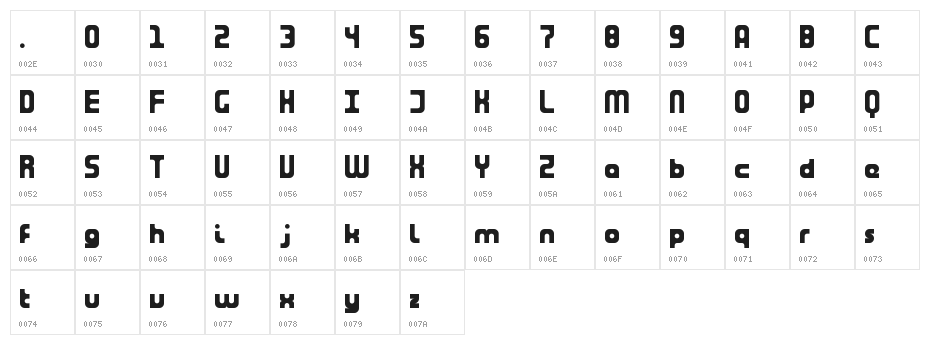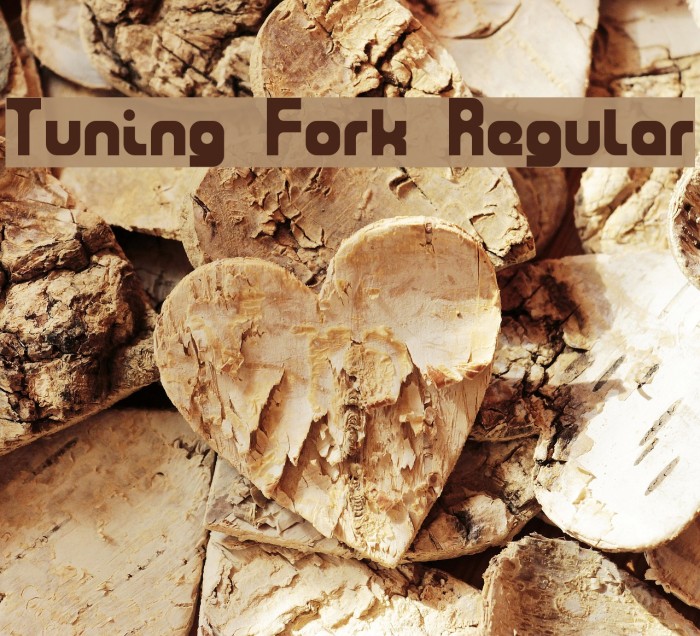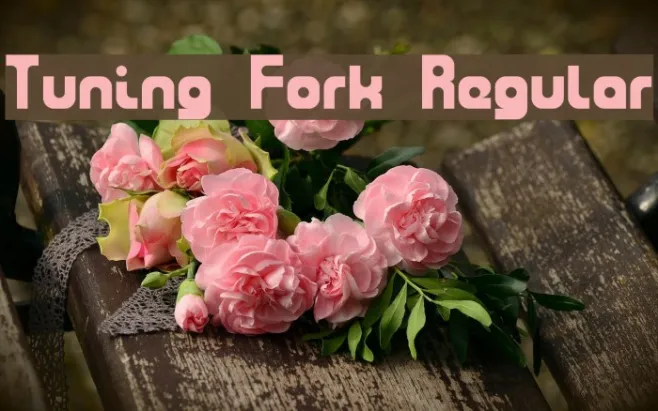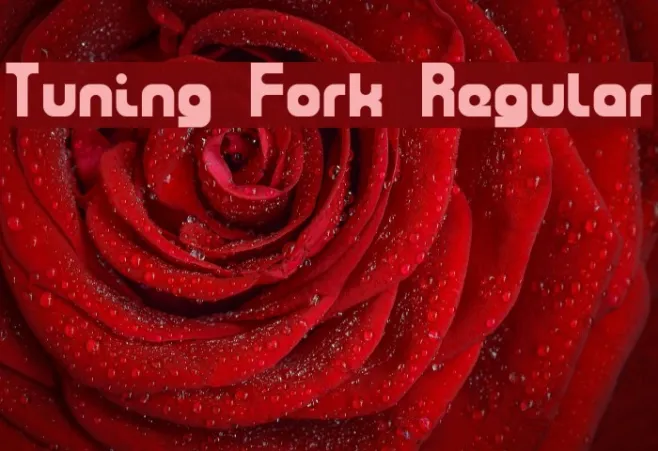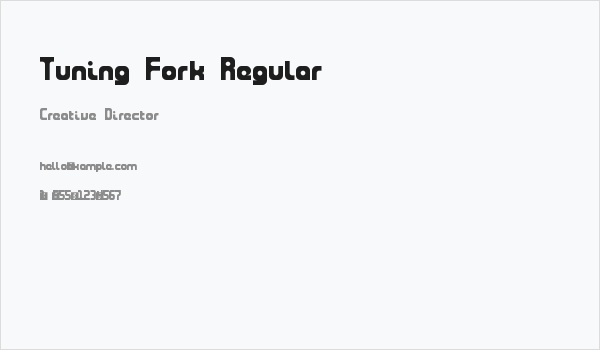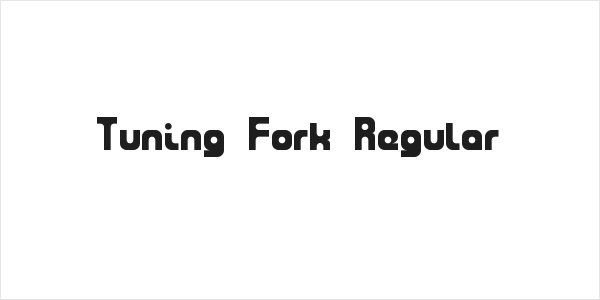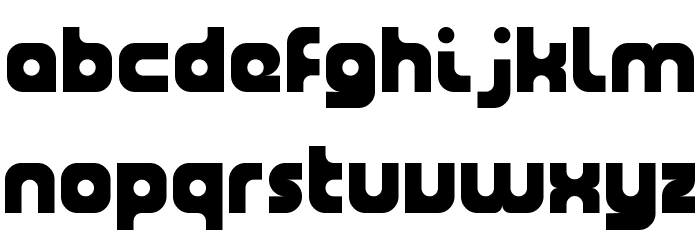
Tuning Fork Regular Font
Tuning Fork Regular Description
This font features a bold and rounded style with a modern, geometric appearance. The characters are uniform in width, creating a monospaced effect, though they are not strictly monospaced. The rounded edges give it a friendly and approachable look, while the consistent stroke width provides a clean and structured feel. The uppercase and lowercase letters maintain a cohesive design, with the lowercase mirroring the uppercase in style. The numerals are distinct and easy to read, matching the overall aesthetic of the alphabet. This font is versatile, suitable for both digital and print media, and can be used to create a strong visual impact.